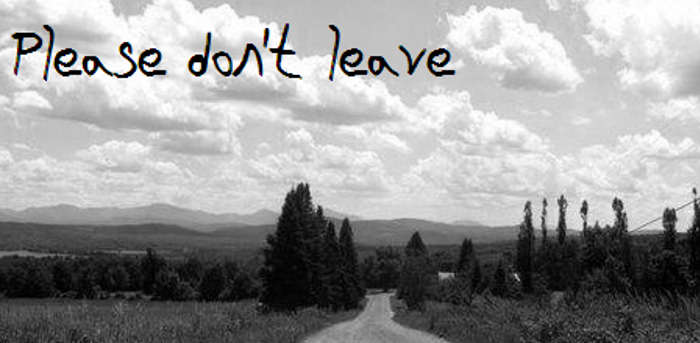
Please Dont Leave NBP Font
Sad boy handwriting essentially. A bit more swashy than the usual NBP font.
CHANGES IN VERSION 1.1
-Fixed letters a, s, f, and l in Type Light
-Added a closequote character